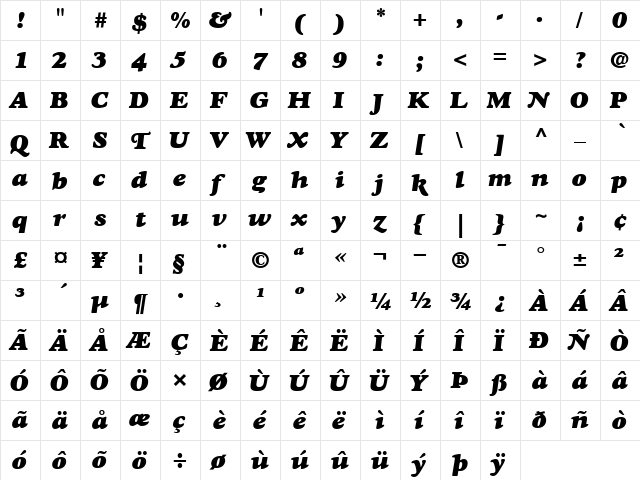
Goudyface-Heavy HeavyItalic
Design Context for Goudyface-Heavy Typeface
Goudyface-Heavy takes a measured approach to typography — its balanced proportions and neutral character make it a reliable workhorse for both digital and print work. Its italic angle brings a sense of urgency and motion to the letterforms.
Pro Tip: Try Goudyface-Heavy for annotation and caption copy alongside an upright companion — the contrast in angle creates a dynamic but ordered typographic system.